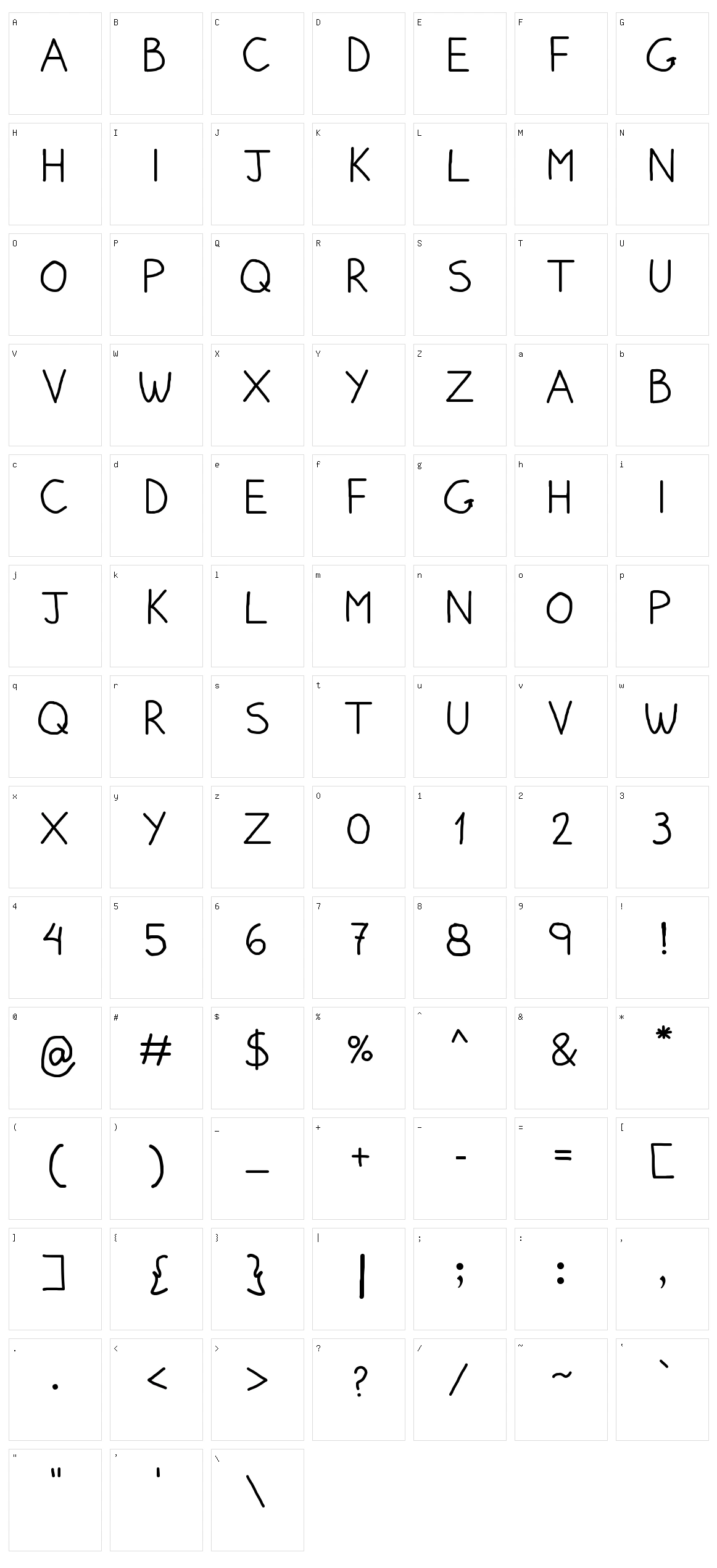
The free font Pumped Up Kicks is carefully designed by catherine, showcasing a thoughtful balance of creativity and usability and falls under the Script font style. When you download the ZIP file, it contains only 20.17 KB of font files, making it lightweight and quick to download. Please review the license details below to understand permitted usage and distribution rights. If license information is not available, we recommend using this font for personal projects only or contacting the author directly for commercial usage permissions.